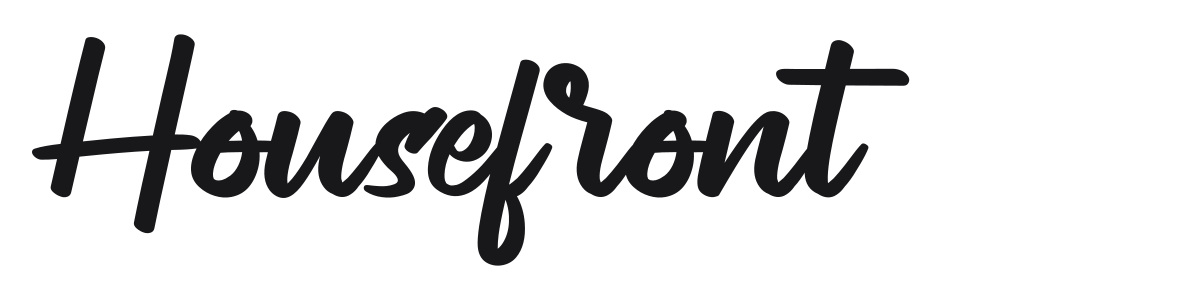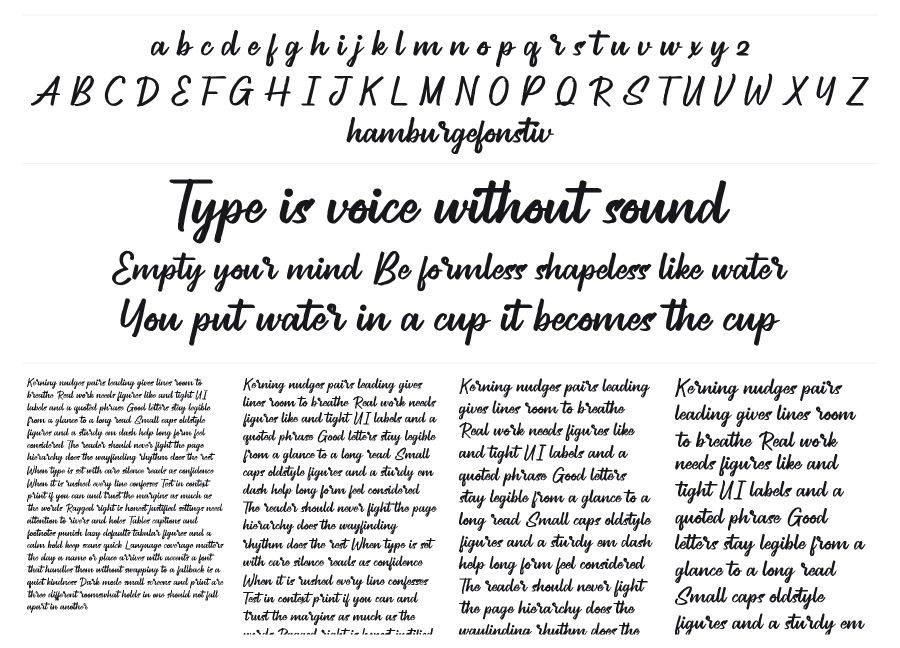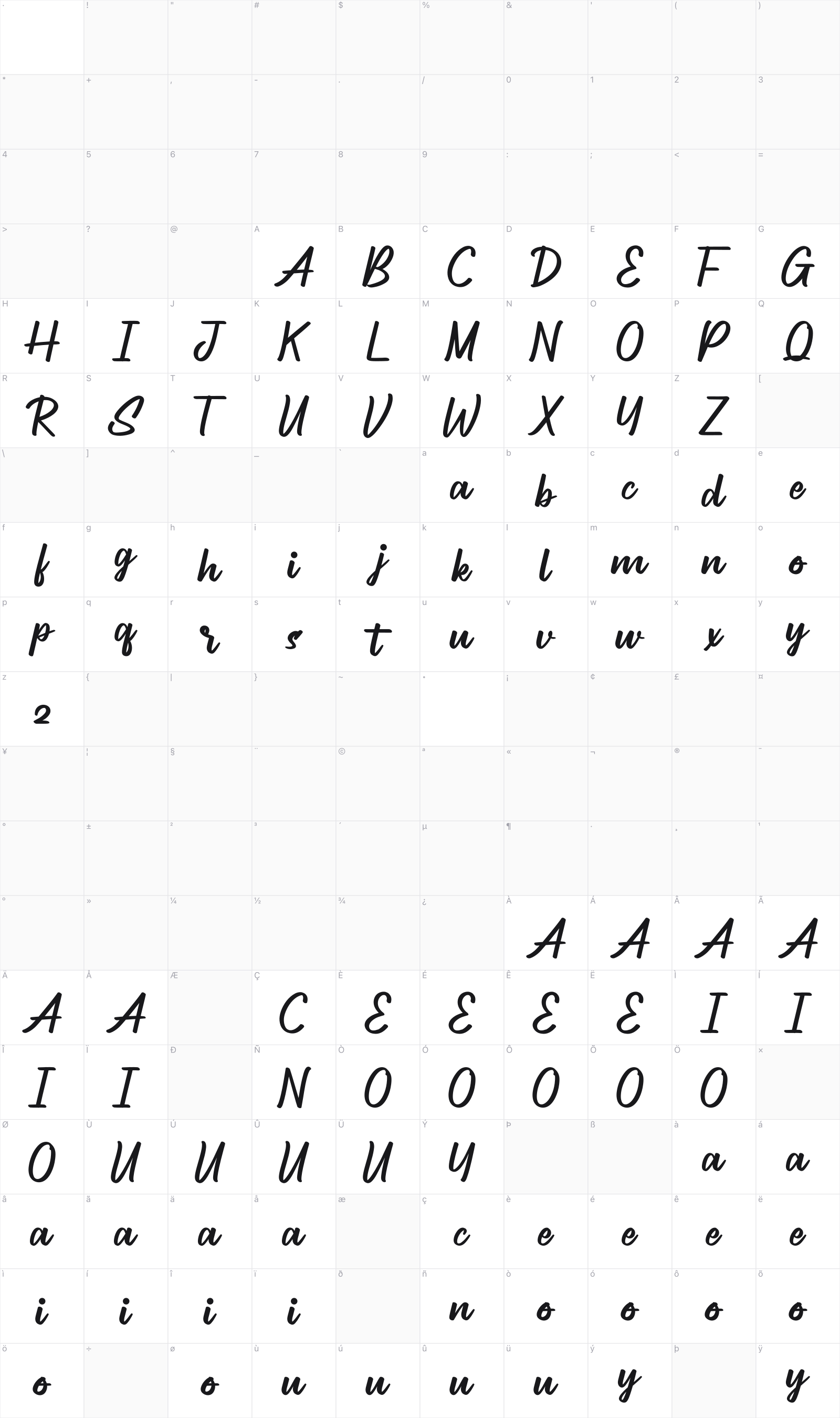
Housefront
Housefront is a bold, connected casual script with the loose energy of hand lettering and the polish of a refined typeface. Its thick, flowing strokes and looping joins give it a confident, friendly warmth that works well on packaging, logos, and editorial headlines. The rounded forms keep it approachable without veering into novelty territory.